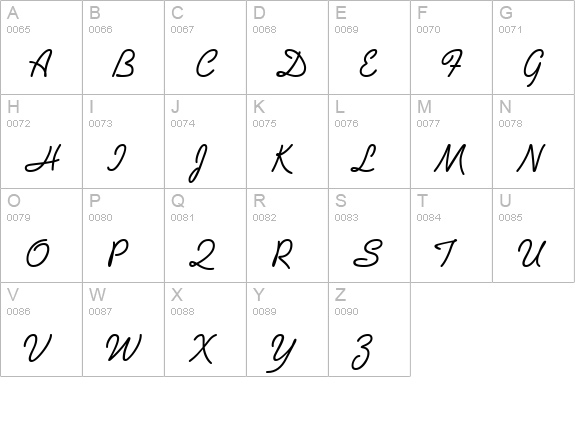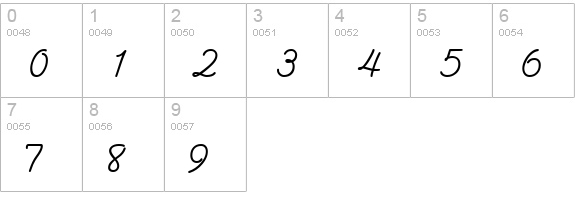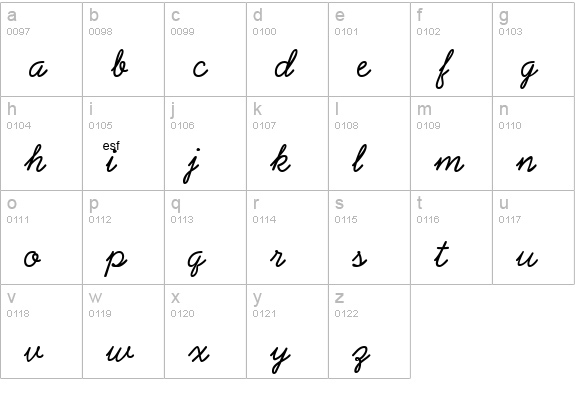
Grandam font is a beautifully crafted typeface that exudes elegance and sophistication. Its graceful curves and flowing lines make it perfect for adding a touch of class to any design project. Whether you're creating wedding invitations, branding materials, or elegant signage, Grandam font is sure to impress. The best part is that Grandam font is available for free download at FontsMarket.com. This means you can easily access this stunning font and incorporate it into your designs without any cost. Don't miss out on this opportunity to enhance your projects with the timeless beauty of Grandam font. Download it today and elevate your designs to the next level.